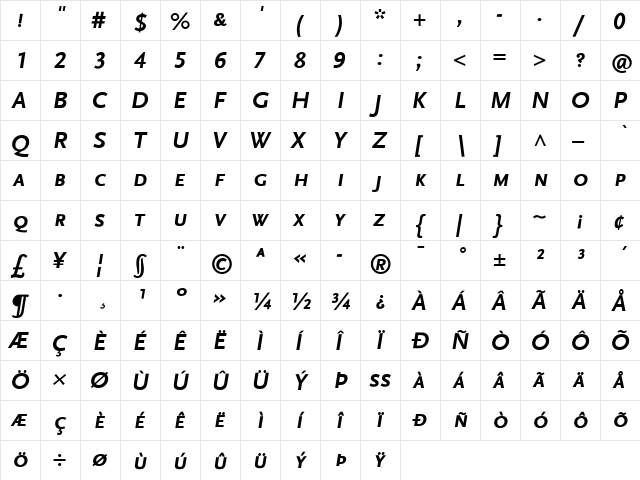
Scala Sans Bold Italic Font Preview
| Foundry | Martin Majoor, . Published by FontShop International. FontFont Release |
Design Context for Scala Sans Typeface
Scala Sans offers clean, dependable letterforms without strong stylistic allegiance, making it a practical choice for designers who need flexibility. Its italic angle brings a sense of urgency and motion to the letterforms. The heavy weight commands attention and anchors typographic hierarchies.
Pro Tip: Try Scala Sans for annotation and caption copy alongside an upright companion — the contrast in angle creates a dynamic but ordered typographic system.